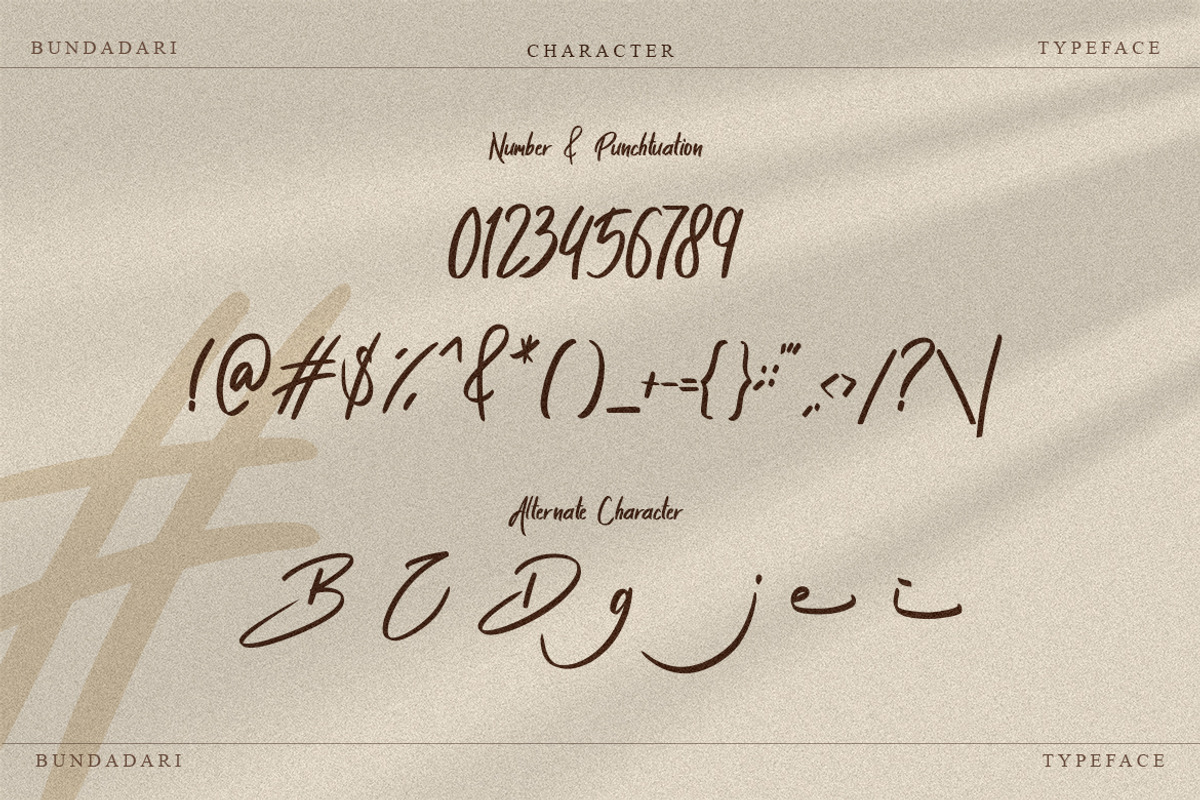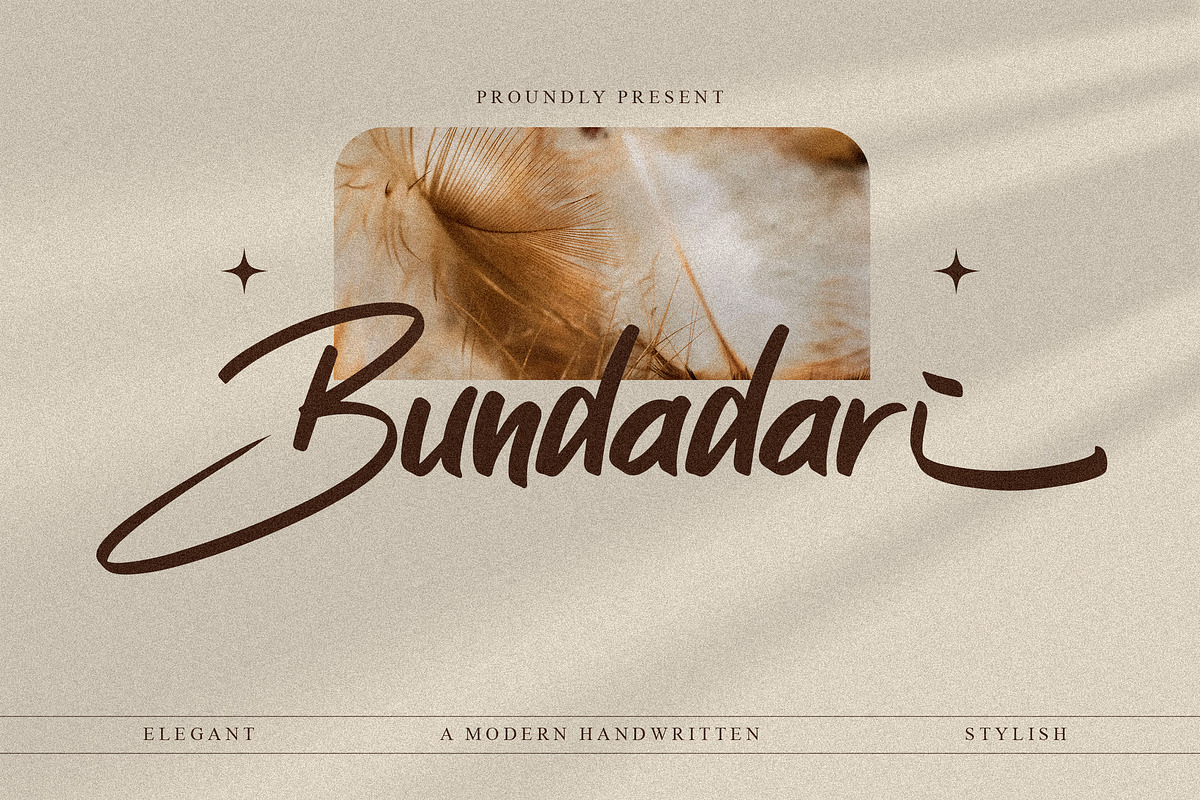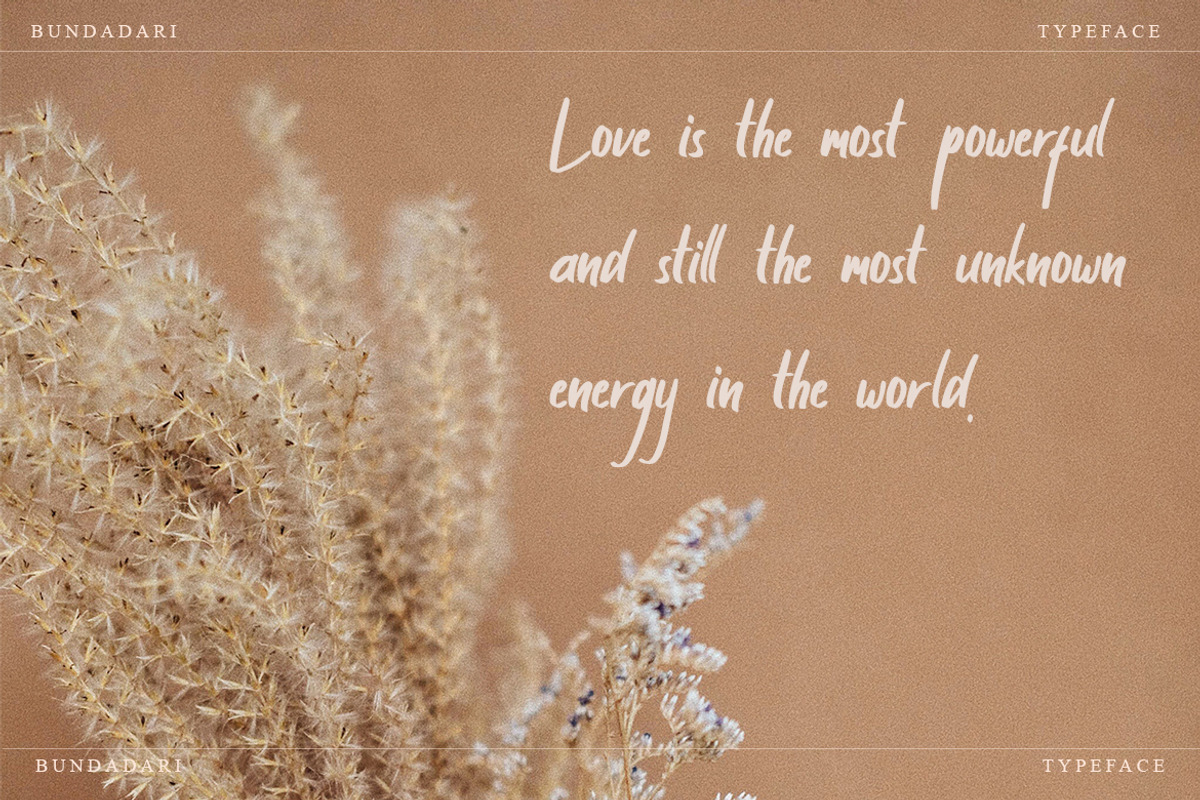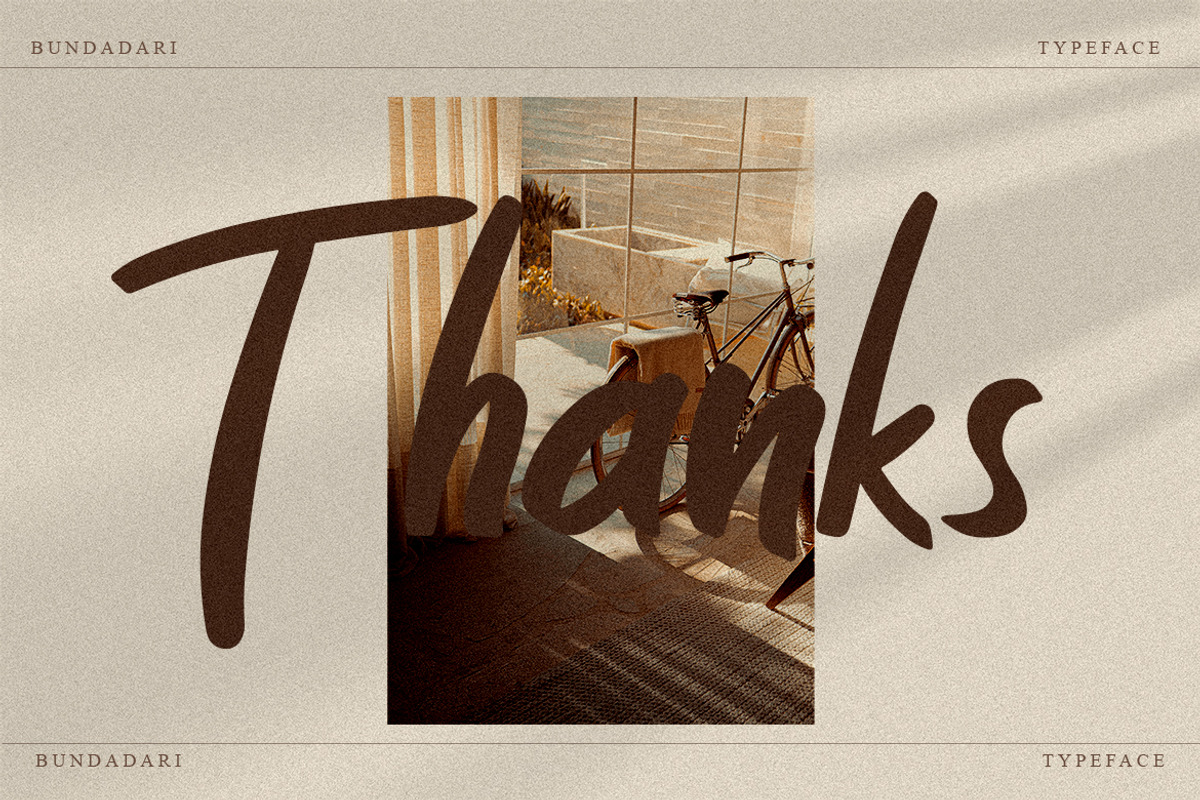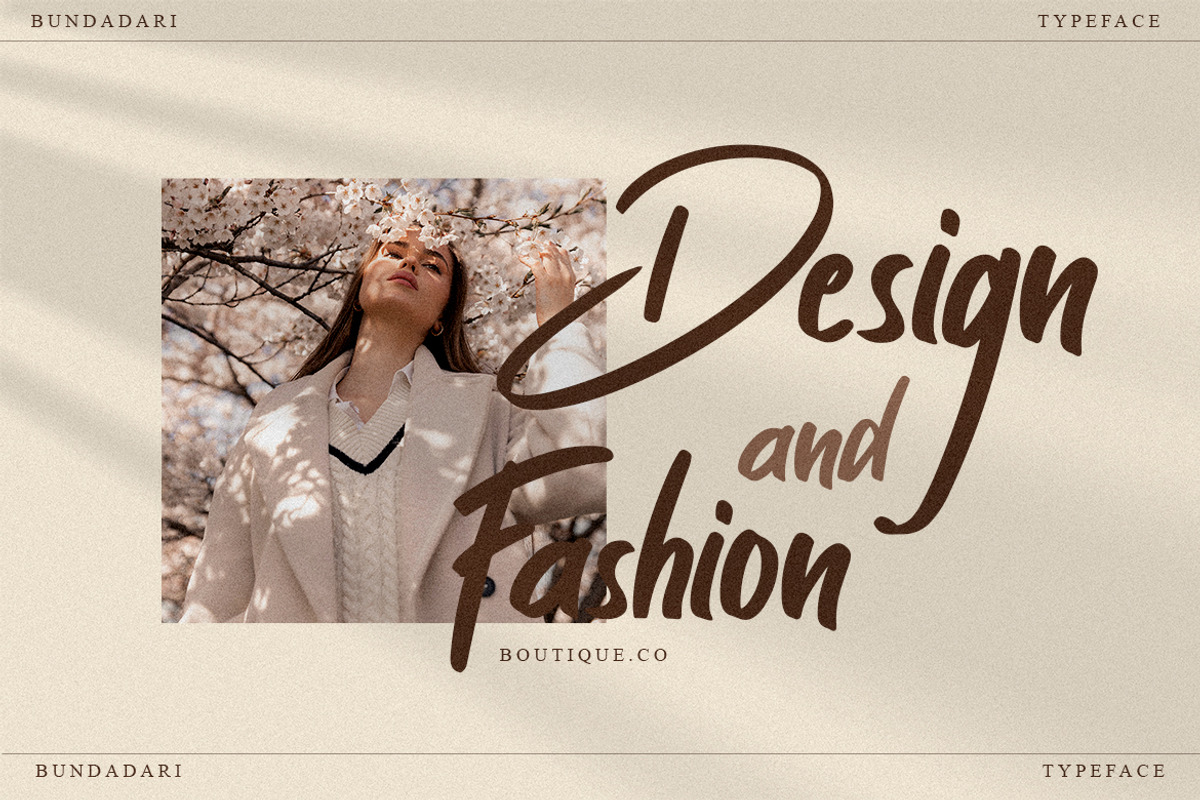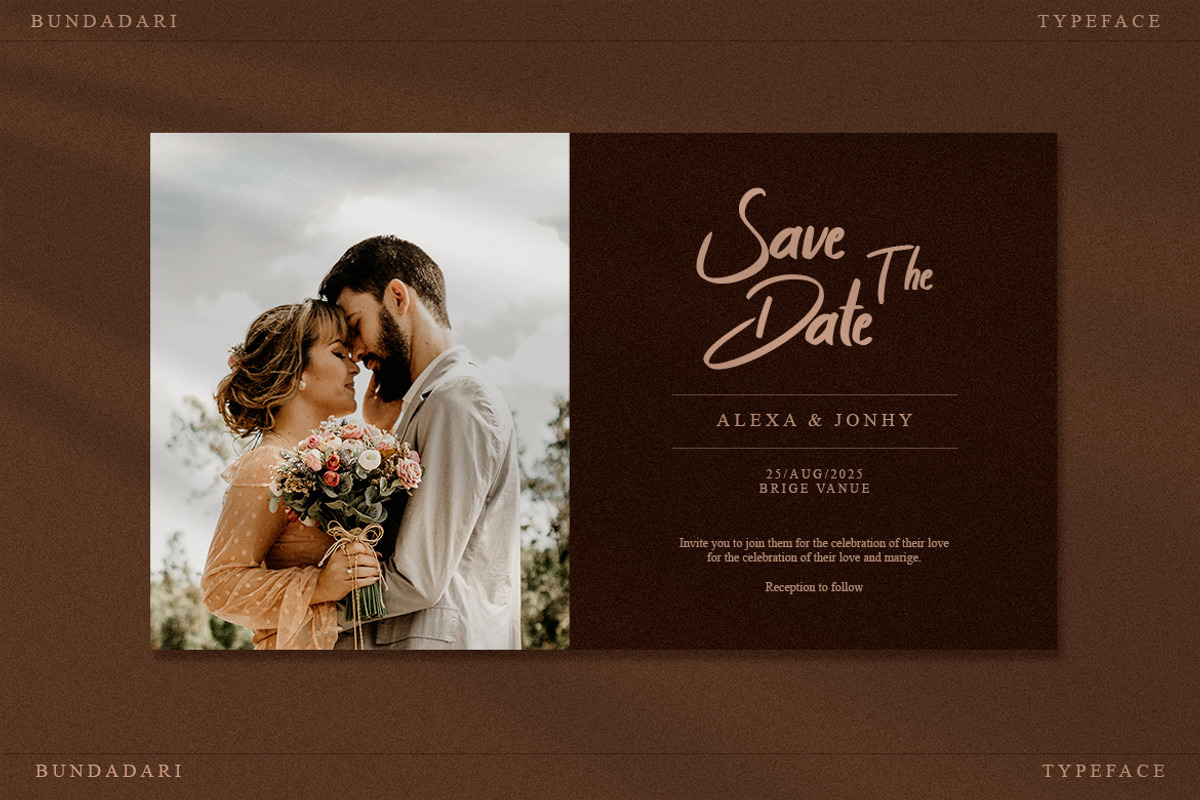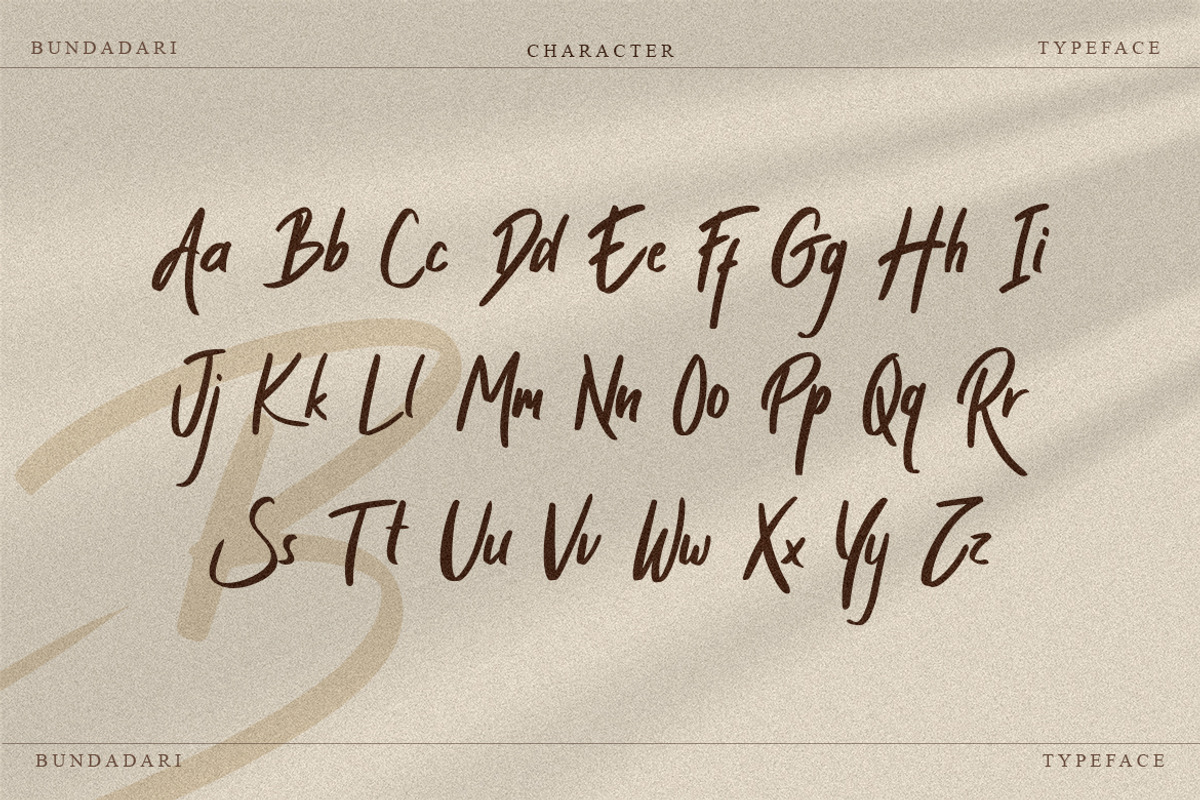
Bundadari - A Modern Handwritten
Bundadari is an awesome with modern cutouts, and a dynamic slant. Ideal for Poster titles, menu flyer, Packaging, Logo and monograms or other modern dynamic text. Bundadari compares favorably with legibility and size, creating the effect of power. Designed as a fast and dynamic font, but with a slightly different font design, check it out and grab it right away.